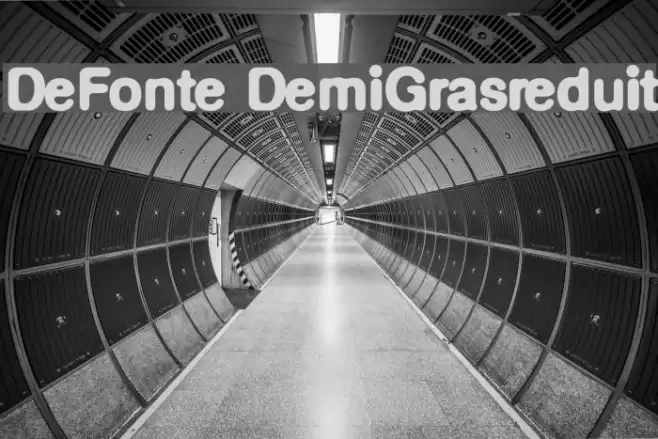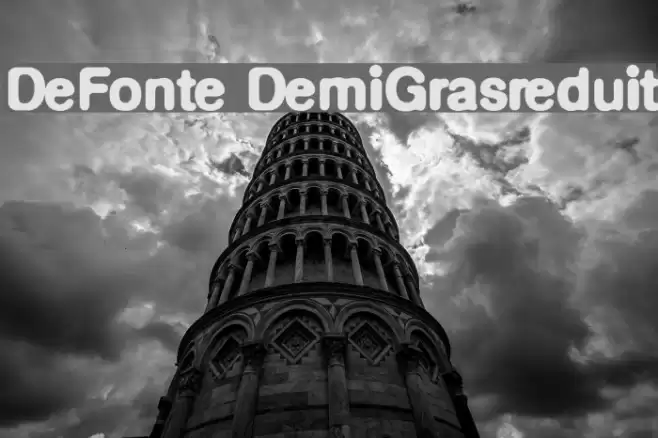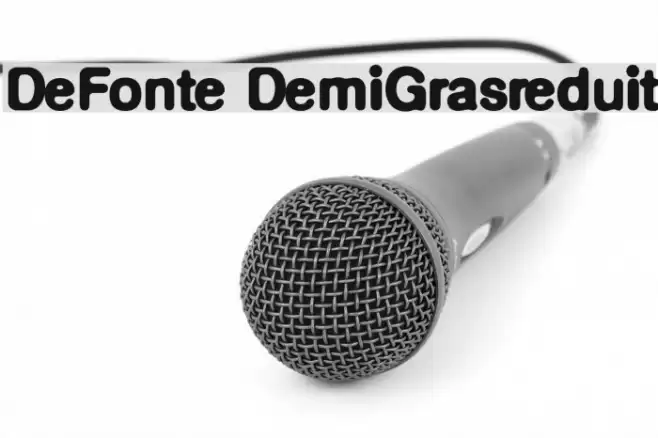
DeFonte-DemiGrasreduit Font
DeFonte-DemiGrasreduit Description
This font features bold, rounded characters with a playful and approachable style. The letters are uniformly thick, giving a strong and consistent appearance across both uppercase and lowercase alphabets. The rounded edges soften the overall look, making it friendly and inviting. The numbers and special characters maintain this cohesive style, ensuring versatility and readability. Its boldness makes it stand out, while the rounded forms add a touch of whimsy.
A bold, rounded font with a playful and approachable style from Uncategorized fonts.
- Proposed Projects: Ideal for children's books, playful branding, posters, and social media graphics.
- Overall Style: Playful